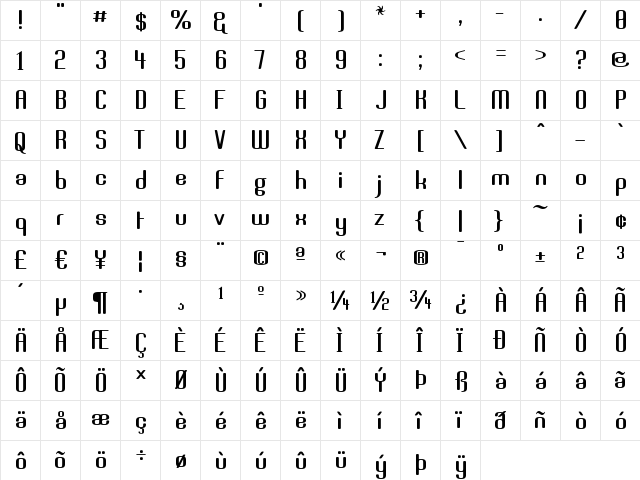
Brassiere Regular Font Preview
Brassiere Regular
Brassiere Regular Font Details
| Designer | Graham Meade |
Design Context for Brassiere Typeface
Brassiere takes a measured approach to typography — its balanced proportions and neutral character make it a reliable workhorse for both digital and print work.